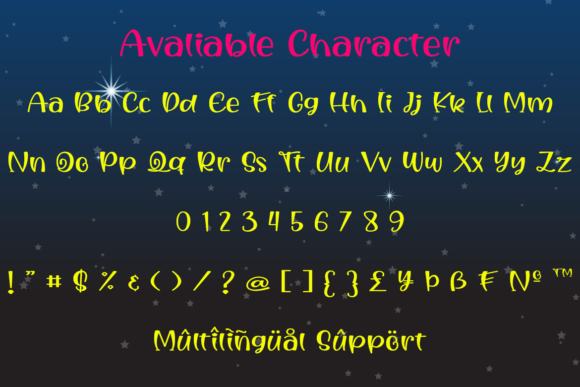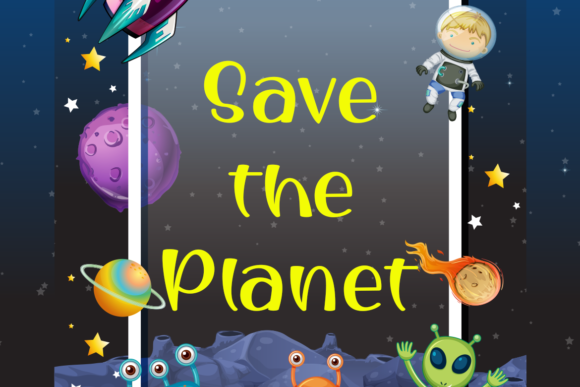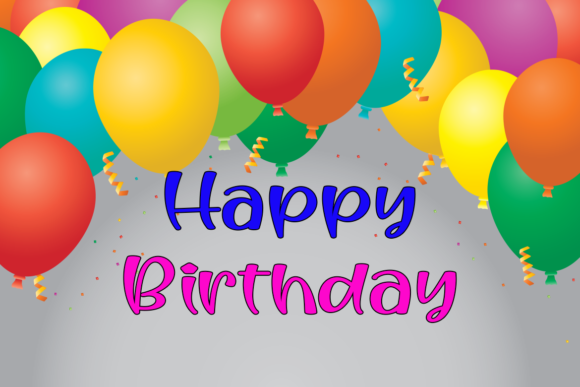
Get Ready for a Galactic Adventure in Typography
Do you remember that moment when a burst of creativity hits you, and you can’t wait to bring your ideas to life? Maybe it’s a children’s book illustration, a cartoon character design, or even a fun poster for a kids’ party. Whatever it is, you want your project to shine with a touch of magic, and that’s where the perfect font comes in.
Enter the enchanting Kiddos Planet Font, a display font that’s out of this world! Designed to add a playful, cheerful vibe to any project, this font is perfect for cartoon-related designs, children’s games, and more. As a designer, you’ll appreciate the versatility and uniqueness of Kiddos Planet Font, making it a valuable addition to your typography toolkit.
Kiddos Planet Font Key Features
- Unique Characteristics: Features a playful, hand-drawn style with a mix of rounded and angular elements, creating a distinctive and engaging visual effect.
- Kerning and Ligatures: Includes advanced kerning and ligature pairs, ensuring that letter combinations are displayed smoothly and professionally.
Kiddos Planet Font Review
I recently had the chance to work with the “Kiddos Planet Font” and I must say it’s a unique and quirky addition to any design project. ✨ One of the things that works well is its playful, hand-drawn feel, which is perfect for creating a sense of whimsy and fun in children’s content, like educational materials, kids’ apps, or nursery decor.
- It’s highly legible, even at smaller font sizes.
- The bold weight is great for headlines and titles.
- The font comes in a range of weights and styles, making it versatile for different design needs.
However, I do have some reservations about the font’s limitations. ⚠️ While it’s great for a playful, casual look, it may not be the best choice for more formal or professional designs, as it can come across as too childish or immature. Additionally, some of the letterforms may be a bit too simplistic or uneven, which can affect readability in certain contexts.
Overall, I think “Kiddos Planet Font” is a great choice for designers looking to add some personality and fun to their projects. While it may not be suitable for every design need, it’s a valuable addition to any font library, and I’m sure I’ll be reaching for it again in the future.
Kiddos Planet Font is ideal for:
- Education and learning materials
- Fun and playful branding
For the best results, use Kiddos Planet Font in combination with bright and colorful graphics and illustrations.